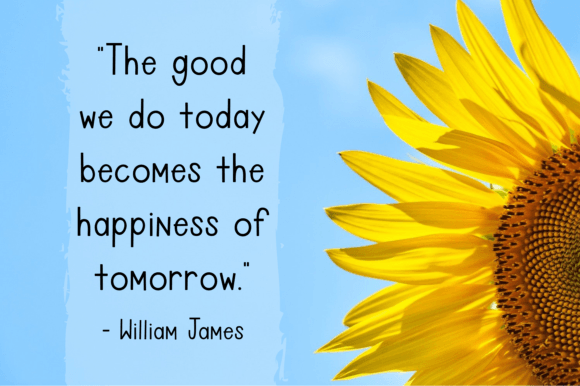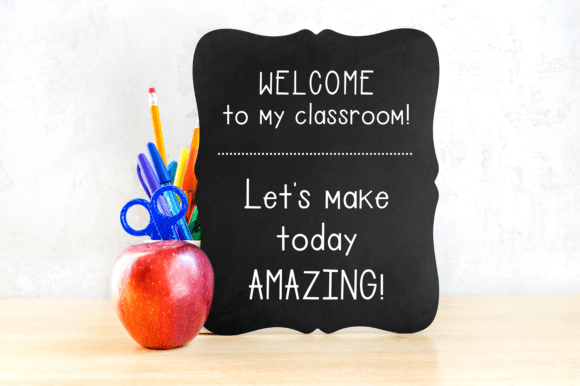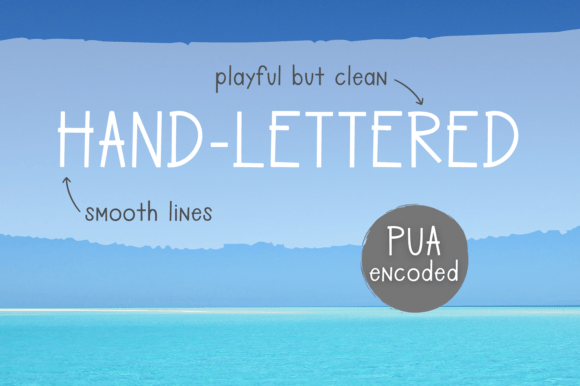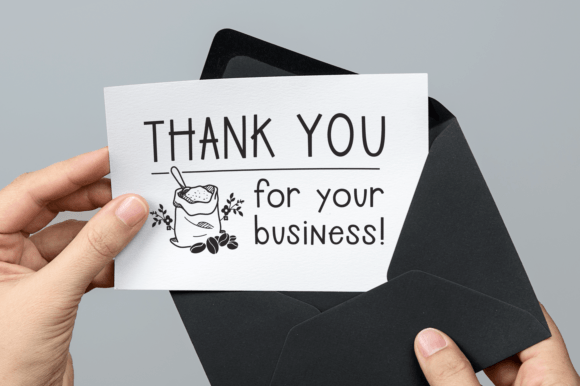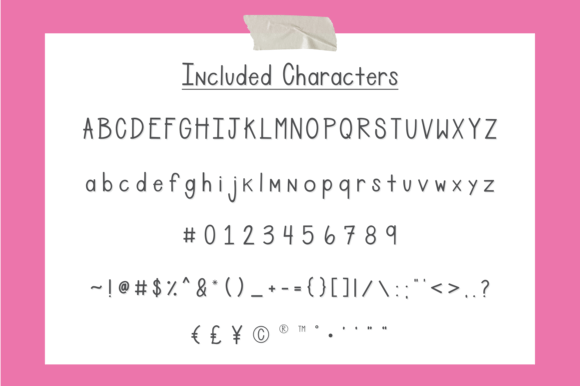
Instant Karma Font: A Creative Game-Changer
Have you ever stared at a blank canvas, searching for the perfect font to bring your creative project to life? It’s a feeling we’ve all been there, but sometimes all it takes is that one special font to make everything click into place. For designers, the right font can be the difference between a good design and a great one. And that’s exactly where the Instant Karma Font comes in – a fun, hand-lettered font that’s sure to elevate your creative endeavors.
With its high-quality design and transparent background, the Instant Karma Font is an invaluable resource for any designer looking to add a personal touch to their work. Whether you’re working on a digital design, creating a presentation, or making greeting cards, this font has the potential to become your go-to choice. And the best part? It’s available for free download, making it an accessible design resource for creatives of all levels.
- High-quality, unique design resource ideal for creative projects.
- Each font has a unique, hand-drawn style with intricate details.
- Instant Karma Font is available in 5 different font styles, each with its own distinct characteristics.
Honest Review: Instant Karma Font
As a designer, I’m always on the lookout for high-quality design resources to elevate my creative projects. Recently, I stumbled upon the Instant Karma Font, and I’m excited to share my honest review with you.
- ✨ Unique and modern design aesthetic that adds a touch of personality to any project.
- ✨ Clean and minimalist approach makes it perfect for a variety of creative projects, from branding to editorial design.
- ⚠️ Limited font weights and styles, which may not be suitable for complex design projects.
The Instant Karma Font is a solid addition to any designer’s toolkit. While it may have some limitations, its unique design and flexibility make it a great resource for creative projects. I’d recommend it to designers who are looking for a modern, minimalist font to add some personality to their work.
Tips for Getting the Most Out of Instant Karma Font
To get the most out of Instant Karma Font, try combining it with other design elements to create visually appealing graphics. Experiment with different text settings and colors to find the perfect look for your project. With its transparent background, you can easily combine it with other design elements to create unique and eye-catching designs.
Instant Karma Font is perfect for a variety of creative projects, including graphics, text overlays, and presentations. Use it to add a touch of elegance and sophistication to your designs, or to create eye-catching graphics and text elements. With its high-quality design and transparent background, Instant Karma Font is a valuable design resource for any project.